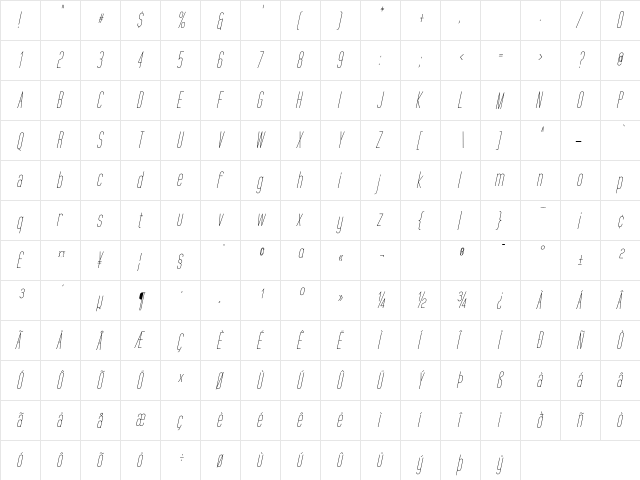
Tall Films Oblique Regular
Design Context for Tall Films Oblique Typeface
Tall Films Oblique is a composed and adaptable typeface that performs quietly and consistently across a wide range of design contexts. Its italic angle brings a sense of urgency and motion to the letterforms.
Pro Tip: Use Tall Films Oblique for emphasis, pull quotes, and subheadings where its slanted energy can add rhythm to the layout.